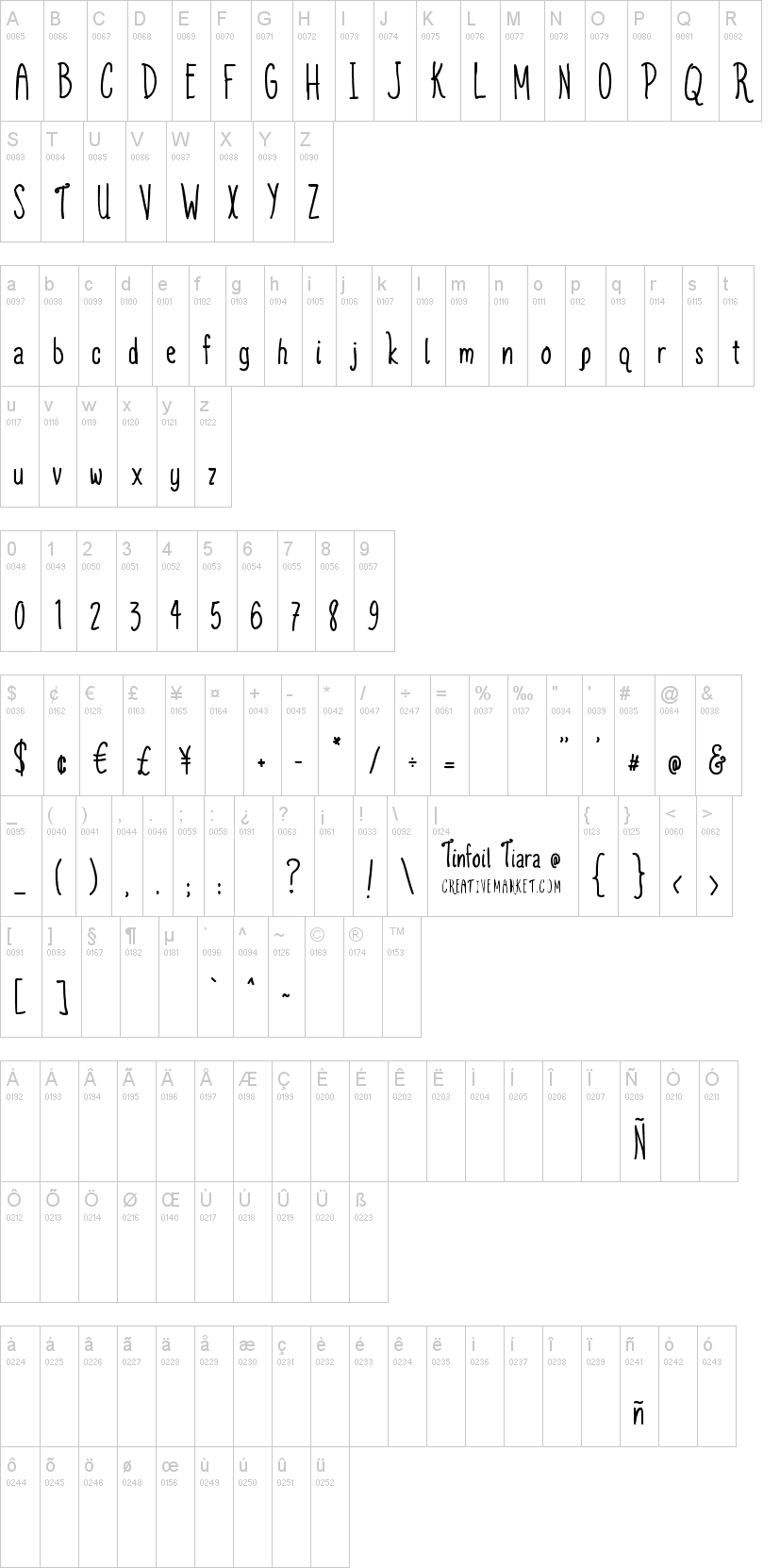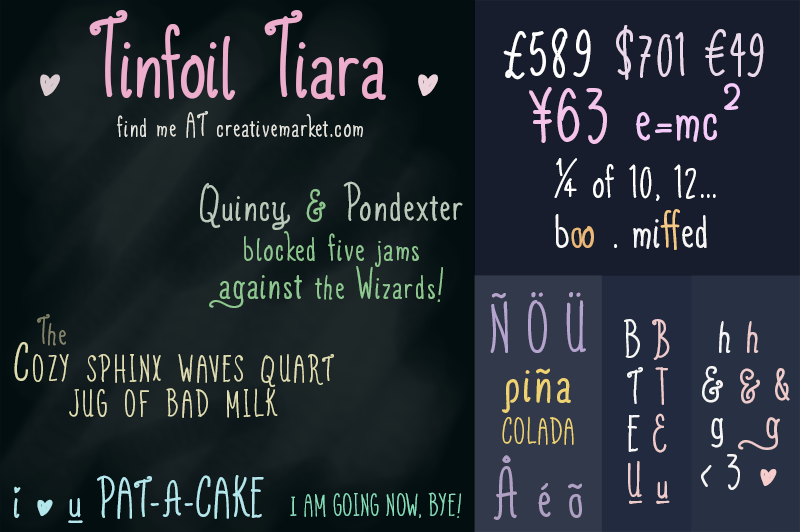
Tinfoil Tiara
Note of the authorIn the spirit of tall, thin handwriting fonts comes display font Tinfoil Tiara, pretty yet far from perfect
Full version comes with Contextual Alternates (toggle off, on in Photoshop's Character Panel) for y, n, g & h; Singular characters (i with a heart for a dot, etc.), Stylistic Alternates for B, E, T, &. Also comes with int'l. characters like ñ, è, å..